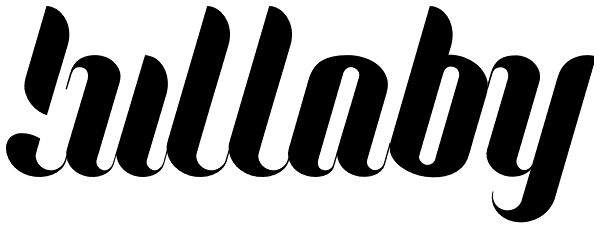
Lullaby
Lullaby is a display font that works great for headlines, posters or logotypes. With its regular rhythm, soft lines, some non-standard ligatures and two versions of each character (caps as alternatives), it gives many possibilities for any kind of...